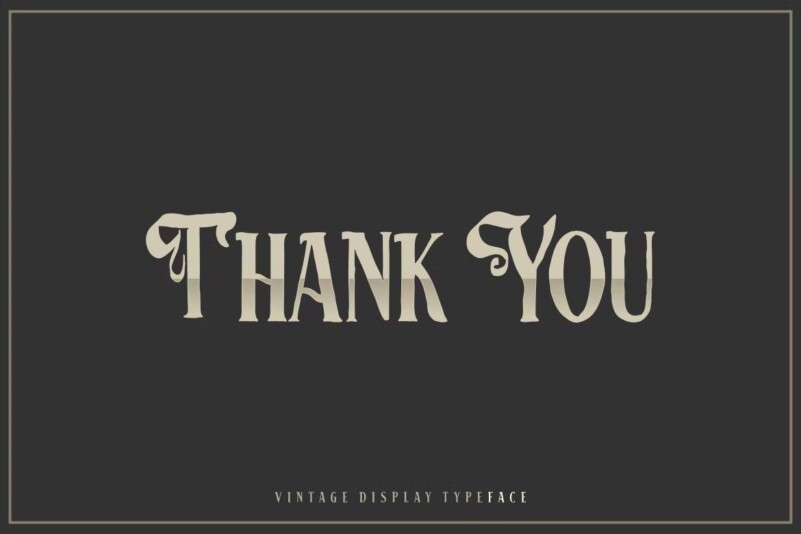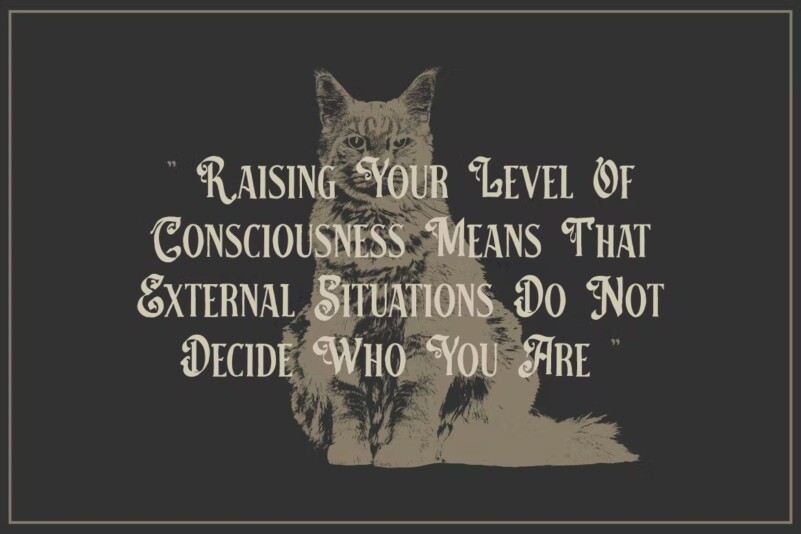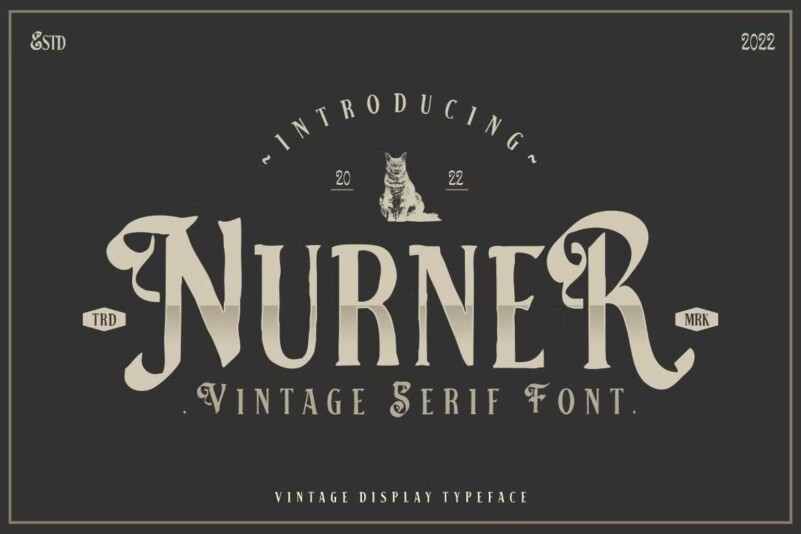
Nurner Font
Introducing Nurner , a modern, cool and stylish serif font. Stylish font feel. This font gives you a beautiful and modern vibe. Suitable for t-shirts, posters, book covers, cards, blogs etc.